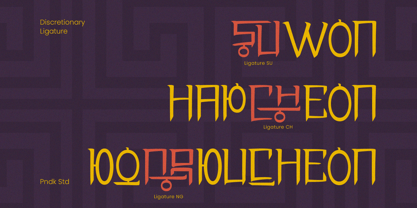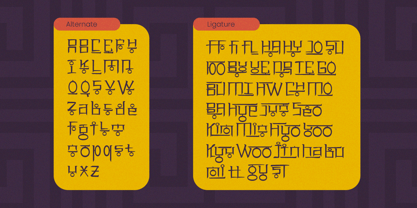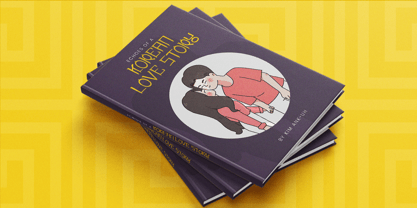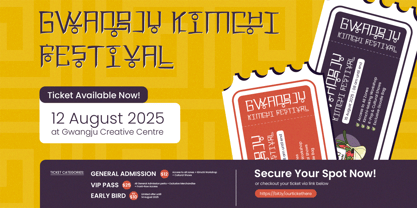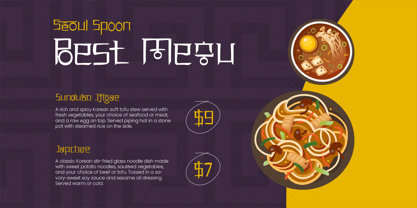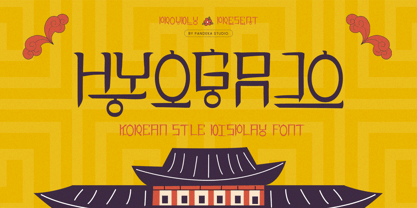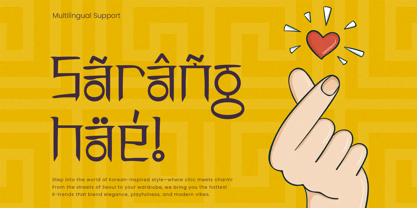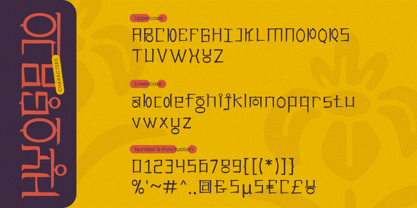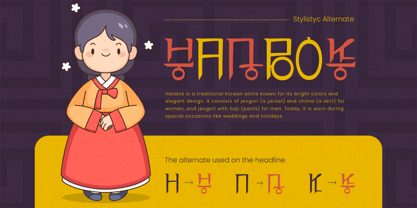
Hyogajo
A família de fontes Hyogajo foi desenhada por Sagara Nararya e publicada pela Pandeka Studio. Hyogajo contém 1 estilos. Saiba mais sobre esta família
Hyogajo – Modern Korean Display Typeface
Hyogajo combines bold typography with contemporary Korean aesthetics, making it ideal for branding, editorial designs, cultural projects, and modern advertisements. Its stylish lettering and elegant structure add a unique and sophisticated touch to any design.
• 1 Style: Regular
• Full Character Set: Uppercase, lowercase, numbers, symbols, and punctuation
• 67+ Ligatures and alternates
Designers: Sagara Nararya